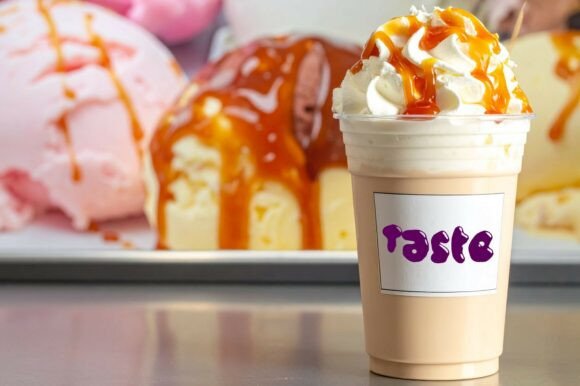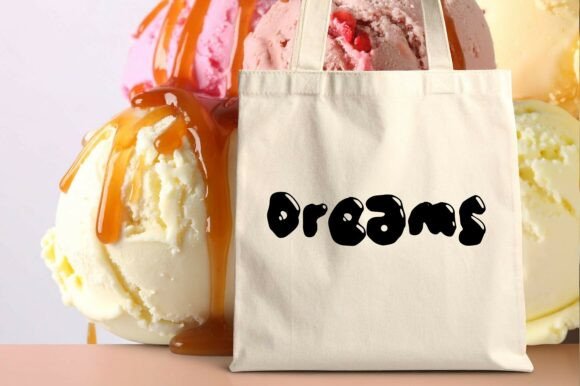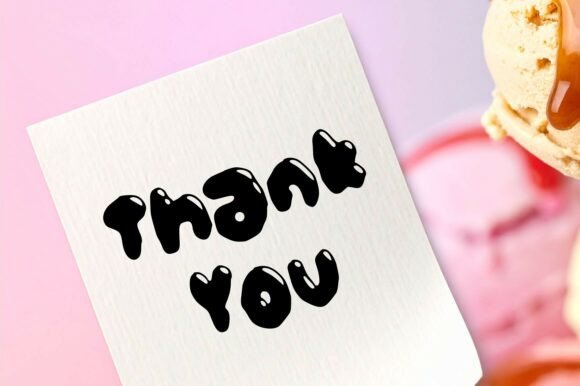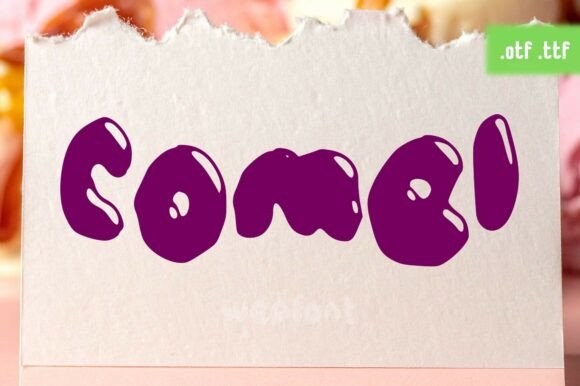
Discover the Delightful World of Comel Font
Are you ready to add a dash of playful, soft innocence to your designs? Look no further than Comel, a typeface that embodies the enchanting allure and cheerful energy of a fluffy, sugary treat. Crafted with perfectly round, plushly padded characters, Comel is a display font that is sure to spread smiles wherever it’s displayed.
The Unique Charm of Comel
Comel’s unique bulging style presents a captivating three-dimensional bubble effect, almost popping out from the screen. This irresistibly delightful and squishy font is perfect for designs that require a touch of whimsy and fun. Whether you’re working on a children’s book, a dessert cafe’s menu, or a cute attire line, Comel is the perfect choice.
A Comprehensive Font for All Your Needs
Comel is far beyond an adorable design asset. With its entire range of upper-case and lower-case letters, numbers, and punctuation, this font has everything you need to create engaging and playful designs. From large-scale headlines to smaller body text, Comel retains its enchanting allure without losing its engaging appeal, even in huge text sizes.
Perfect for Children’s Designs
Comel blends seamlessly with all things children – books, educational materials, cute attire lines, or toys. The font’s playful and soft nature makes it an excellent choice for designs aimed at kids. Imagine using Comel to create a colorful and engaging children’s book, or to add a touch of fun to a kids’ clothing line.
Add a Sprinkle of Sweetness to Your Brand
Dessert cafes and confectionary stores can use Comel as the perfect sprinkle of sweetness on their menus, packaging, or marketing materials. The font’s sugary and playful vibe is sure to match the brand’s tone and create a cohesive visual identity. Whether you’re designing a menu, a brochure, or a social media post, Comel is the perfect choice to add a touch of fun and whimsy.
Why Choose Comel?
- Unique and playful design: Comel’s bulging style and 3D effect make it a standout font that’s sure to grab attention.
- Comprehensive character set: With upper-case and lower-case letters, numbers, and punctuation, Comel has everything you need to create engaging designs.
- Scalable: Comel retains its enchanting allure at all scales, from small body text to large headlines.
- Versatile: Comel blends seamlessly with a variety of designs, from children’s books to dessert cafes.
Tips for Using Comel
- Experiment with colors: Comel looks great in bright, bold colors, but it also works well in pastel shades and neutral tones.
- Mix and match: Combine Comel with other fonts to create a unique and engaging visual identity.
- Play with sizes: Use Comel in a variety of sizes to create visual interest and hierarchy in your designs.
Comel is a delightful font that’s sure to add a touch of playful, soft innocence to your designs. With its unique bulging style, comprehensive character set, and scalable design, Comel is the perfect choice for designers and crafters looking to create engaging and whimsical designs. Whether you’re working on a children’s book, a dessert cafe’s menu, or a cute attire line, Comel is the perfect sprinkle of sweetness to make your designs pop.